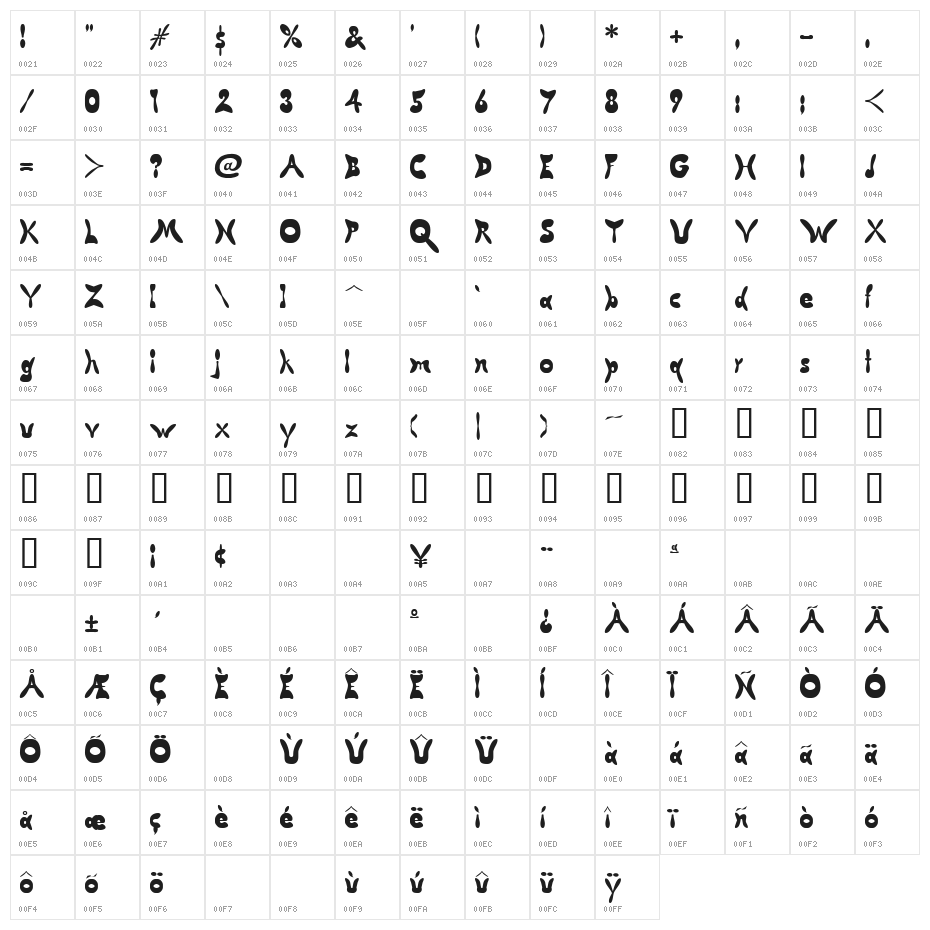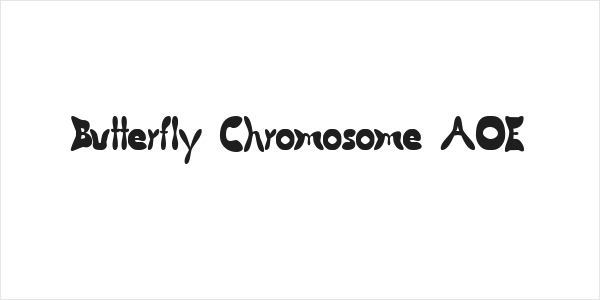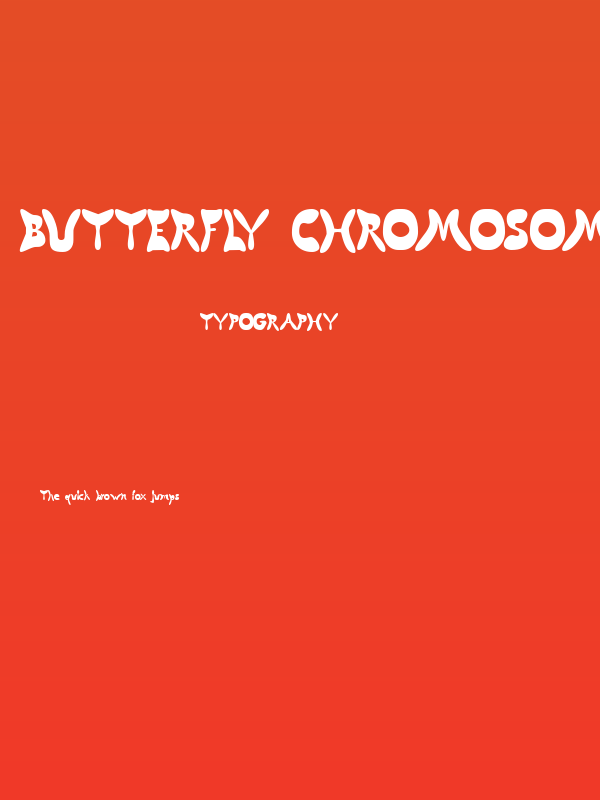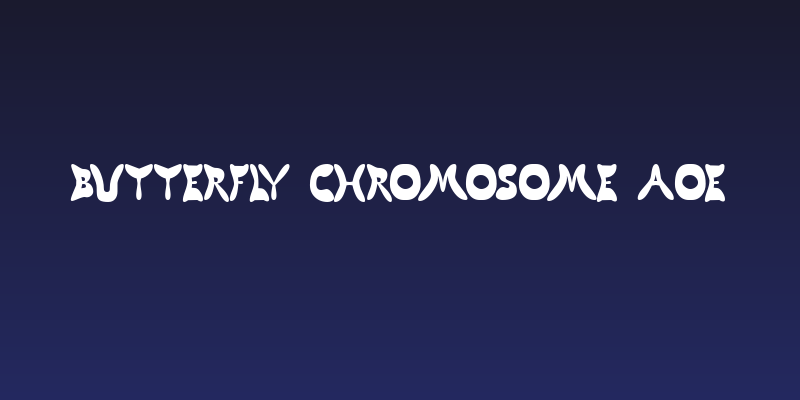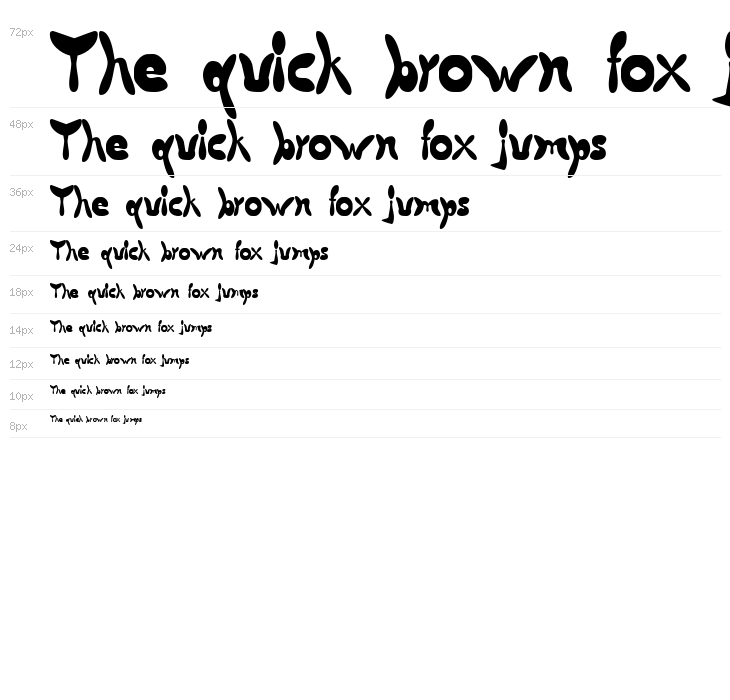
Butterfly Chromosome AOE Font
Butterfly Chromosome AOE Description
This font exhibits a playful and organic style, characterized by its bold, irregular shapes and fluid lines. The letters have a whimsical, almost hand-drawn appearance, with varying stroke widths that give it a dynamic and lively feel. The uppercase and lowercase letters maintain a consistent style, while the numbers and special characters complement the overall design. The font's unique aesthetic makes it stand out, offering a creative and artistic touch to any project.
| Proposed Projects | Ideal for creative projects such as children's books, artistic posters, playful branding, and unique packaging designs. |